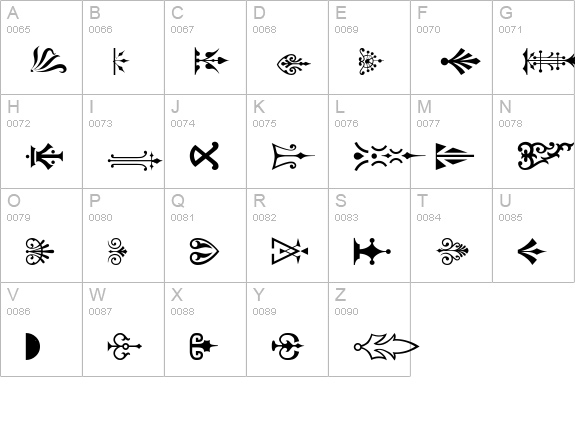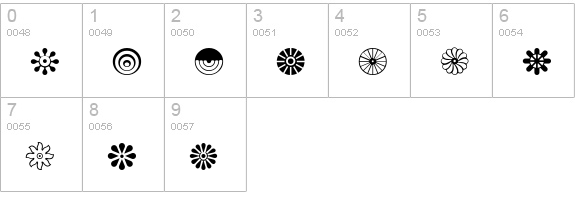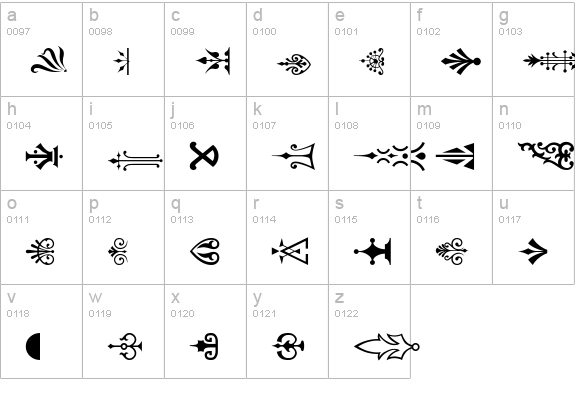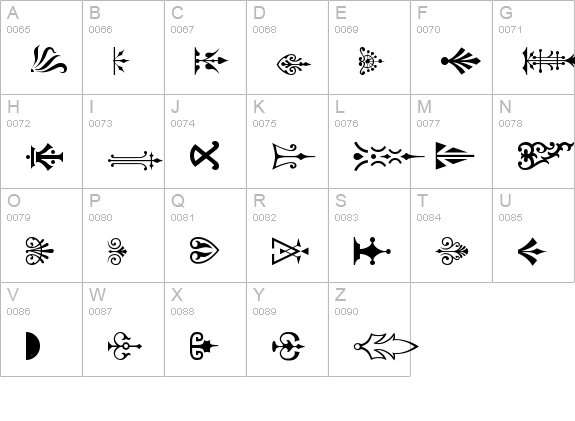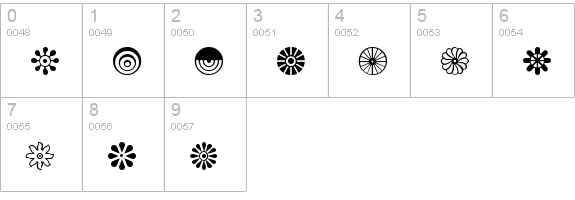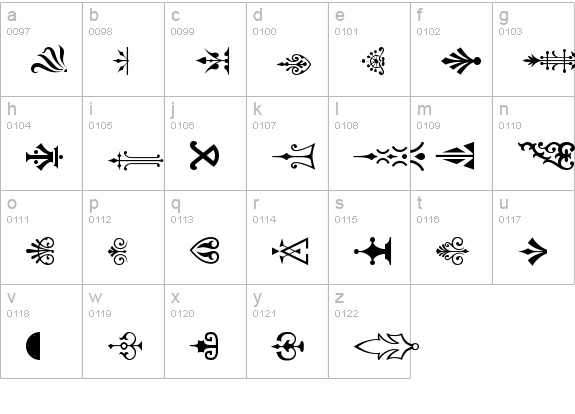
PCOrnaments Font Details
Introducing PCOrnaments font, a stunning collection of ornamental elements designed to add a touch of elegance and sophistication to your designs. This exquisite font is the perfect choice for creating decorative borders, frames, and embellishments that will captivate your audience. PCOrnaments font features a wide range of intricately crafted ornaments, from intricate swirls and delicate floral patterns to geometric shapes and stylish flourishes. Each element has been meticulously designed to ensure a flawless and seamless integration into your projects, allowing you to effortlessly enhance the visual appeal of your designs. What sets PCOrnaments font apart is not only its impeccable design but also its accessibility. This font is freely available to download at FontsMarket.com, making it a valuable asset for designers, artists, and creatives of all levels. By offering PCOrnaments font for free, we aim to empower and inspire individuals to unleash their creativity without any limitations. Whether you are working on invitations, logos, posters, or any other design project, PCOrnaments font provides you with a versatile toolkit to elevate your work to new heights. Its versatility allows you to mix and match different elements, creating unique and eye-catching compositions that will leave a lasting impression. With PCOrnaments font, you have the freedom to explore endless possibilities and unleash your imagination. So why wait? Download PCOrnaments font for free at FontsMarket.com and embark on a creative journey that will transform your designs into masterpieces.